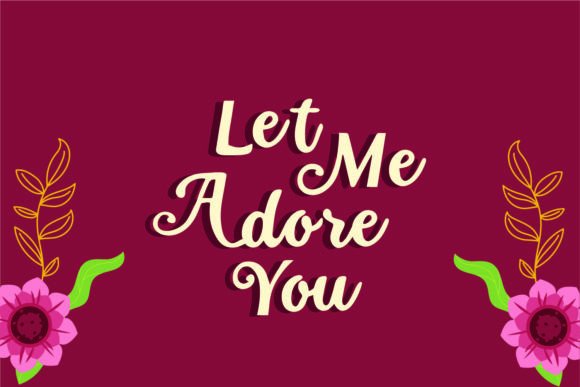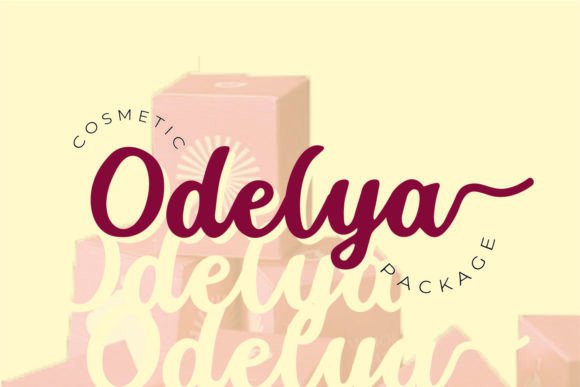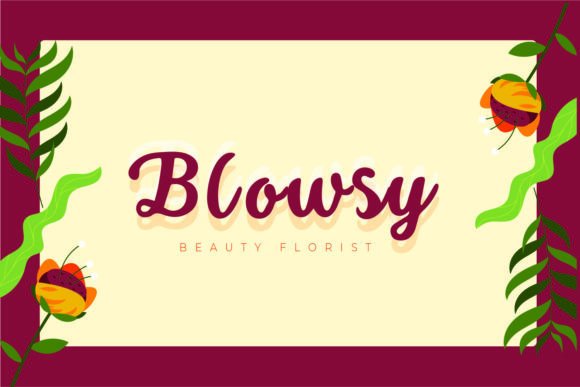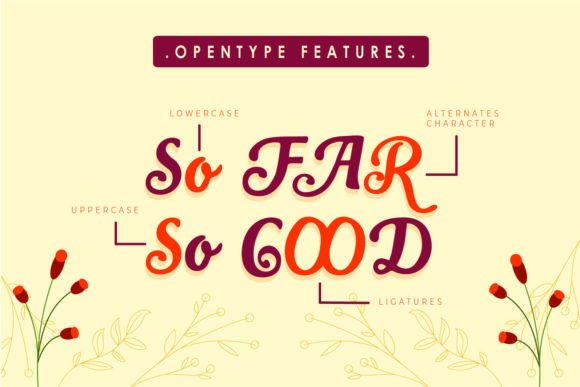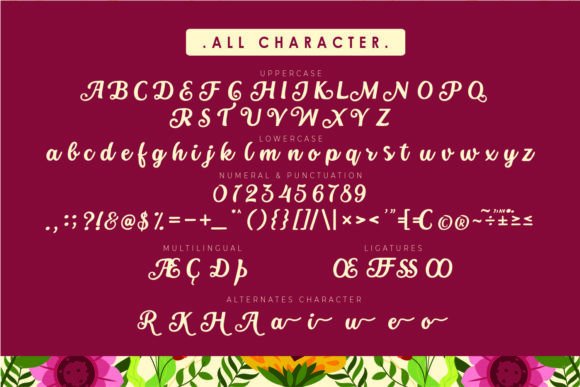
Introduction to Rachel Font
Have you ever been stuck on a creative project, desperately searching for the perfect font to bring your vision to life? I’m sure many designers can relate to that feeling. It’s like searching for a needle in a haystack, but with fonts, it’s even more challenging. But what if I told you that there’s a font that can make all the difference? Enter Rachel Font, the exquisite handwritten font that’s sure to become your new favorite design resource.
With its classy calligraphic influences and fresh, contemporary feel, Rachel Font is the perfect addition to any high-quality design project. Whether you’re working on a branding project or creating a beautiful invitation, this font is sure to elevate your work to new heights. And the best part? It’s PUA encoded, making it easy to access all the glyphs and ligatures you need to bring your project to life.
Key Features of Rachel Font
- High-quality design with a transparent background, ideal for creative projects.
- Features a unique, elegant design that is perfect for a variety of creative projects, from branding to typography.
- Easy to use and customize, with a clear and legible design that is perfect for both body text and headings.
Honest Review: Rachel Font
I recently had the chance to work with the Rachel Font, and I’m excited to share my honest thoughts with you.
- The Rachel Font offers a high-quality, elegant design that’s perfect for creative projects.
- The font’s sleek, modern aesthetic makes it a great choice for business or personal branding.
- The font may not be suitable for projects that require a bold or playful tone.
Overall, I’m impressed with the Rachel Font. It’s a solid design resource that can elevate any creative project. While it may have some limitations, the benefits far outweigh the drawbacks. If you’re looking for a high-quality, elegant font, the Rachel Font is definitely worth considering.
Rachel Font
Tips for Getting the Most Out of Rachel Font
Use the Rachel Font in a creative project to add a touch of elegance and sophistication. The free download option makes it an accessible design resource for anyone. To get the most out of the font, experiment with different font sizes, colors, and alignments to create a unique design element.
Common Use Cases for Rachel Font
The Rachel Font is a versatile design resource that can be used in a variety of projects, including business cards, brochures, and social media graphics. Its high-quality design and transparent background make it a great choice for creative projects that require a unique and eye-catching design element.